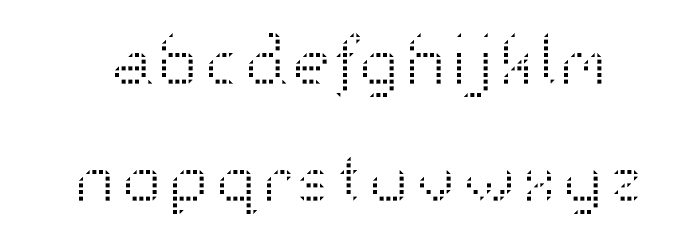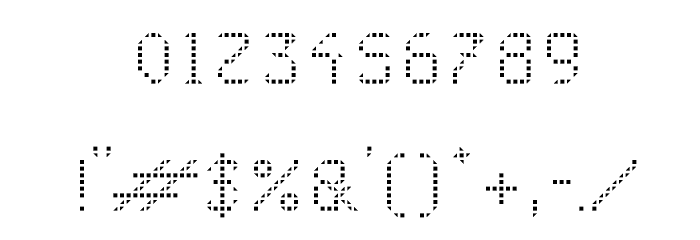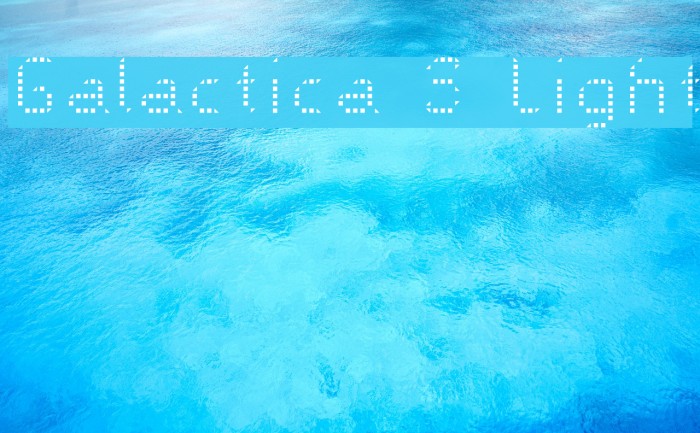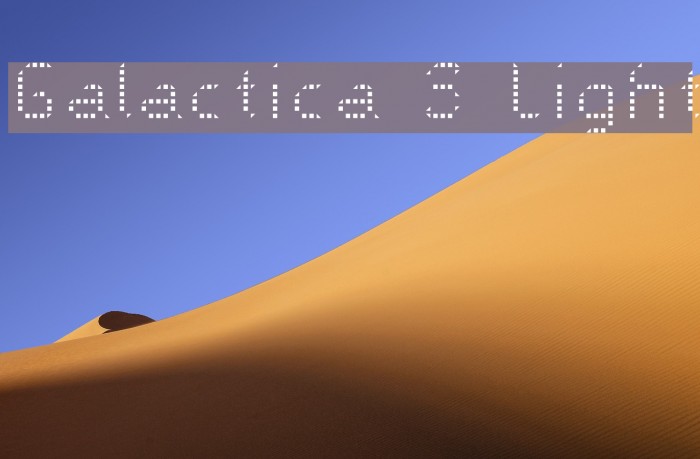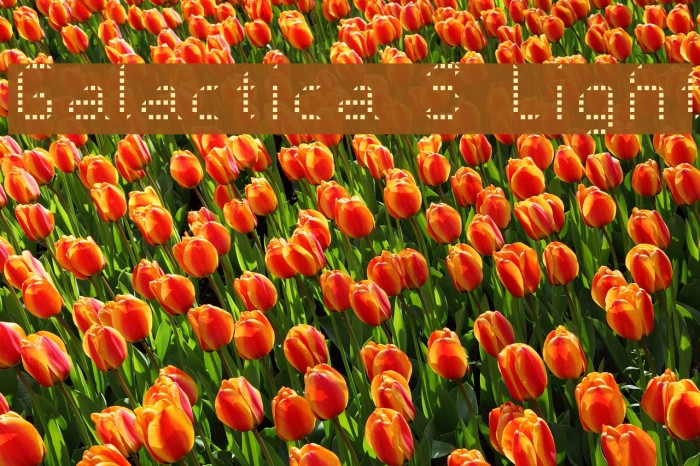
Galactica S Light Font
This font features a futuristic and digital aesthetic, characterized by its dotted, pixel-like structure. Each character is composed of small, evenly spaced squares, creating a distinct, high-tech appearance. The design is clean and geometric, with a consistent pattern that gives it a cohesive look. The uppercase and lowercase letters maintain uniformity in style, while the numbers and special characters follow the same pixelated theme. This font is ideal for projects that require a modern, digital touch, such as tech-related branding, digital art, or futuristic themes.
A futuristic, pixelated font with a digital, high-tech aesthetic.
- Proposed Projects: Ideal for tech branding, digital art, sci-fi themes, and modern design projects.
- Use Case: Logos, Headlines, Digital Art